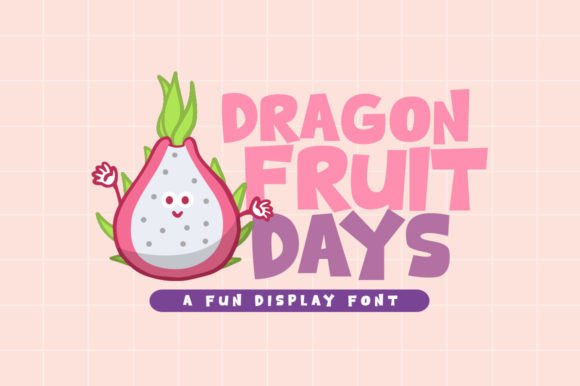
Behold, a font that will unleash the playful spirit within your designs! Meet Dragon Fruit Days, a display font that dances with joy and laughter.
Picture this: a crayon-wielding unicorn prancing across your screen, leaving a trail of whimsical letters. That's the magic of Dragon Fruit Days! It's the font that transforms ordinary words into extraordinary adventures, turning your designs into vibrant playgrounds of imagination.
Whether you're crafting captivating YouTube thumbnails, designing playful posters, or adding a touch of whimsy to your logos, Dragon Fruit Days is your trusty companion. Its cheerful curves and vibrant spirit will make your creations shine brighter than a rainbow after a summer storm.
Let Dragon Fruit Days ignite the spark of creativity within you. It's the font that will make your audience smile, dance, and believe in the power of a playful imagination. Embrace the magic and let your designs blossom with joy!